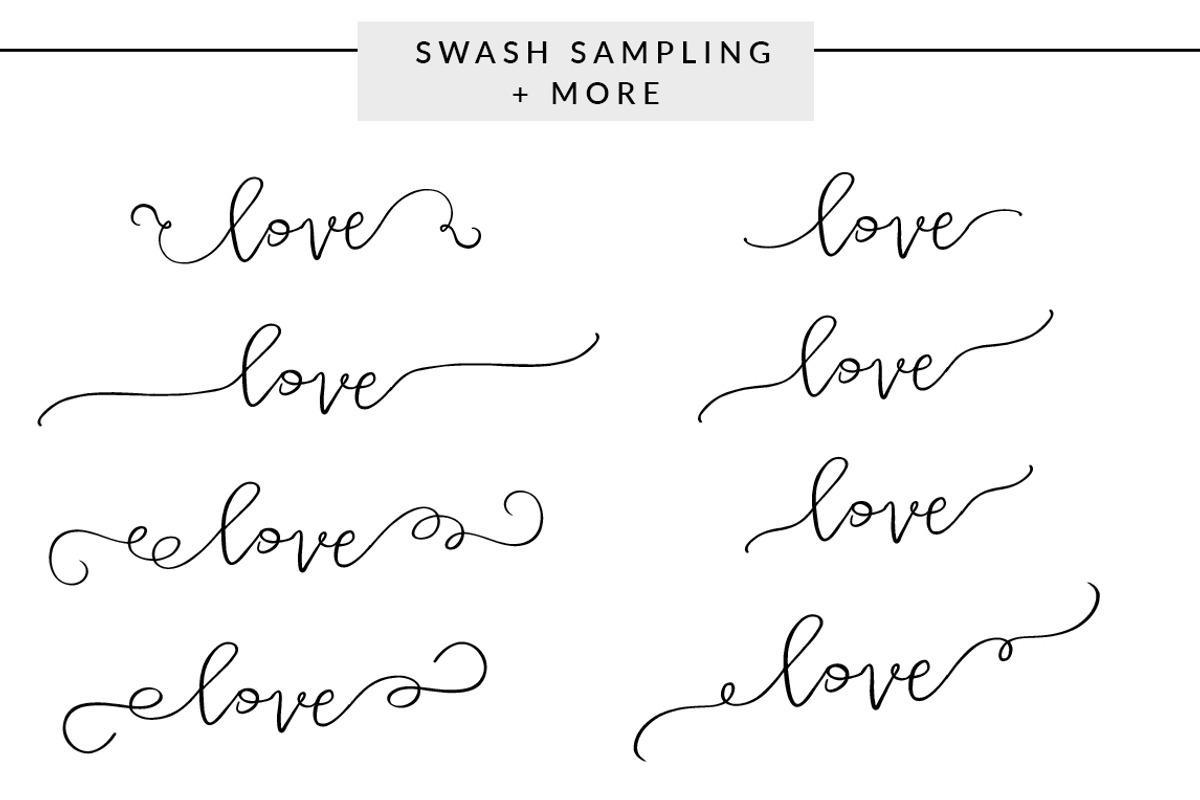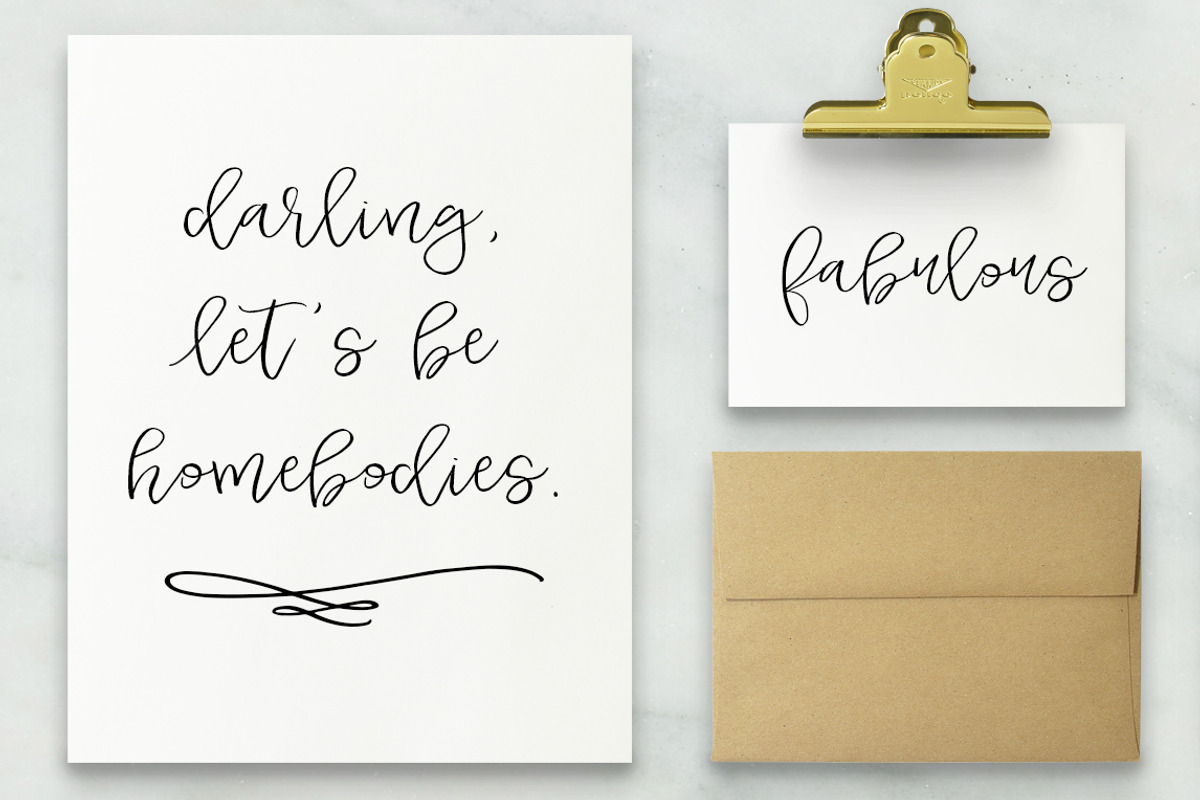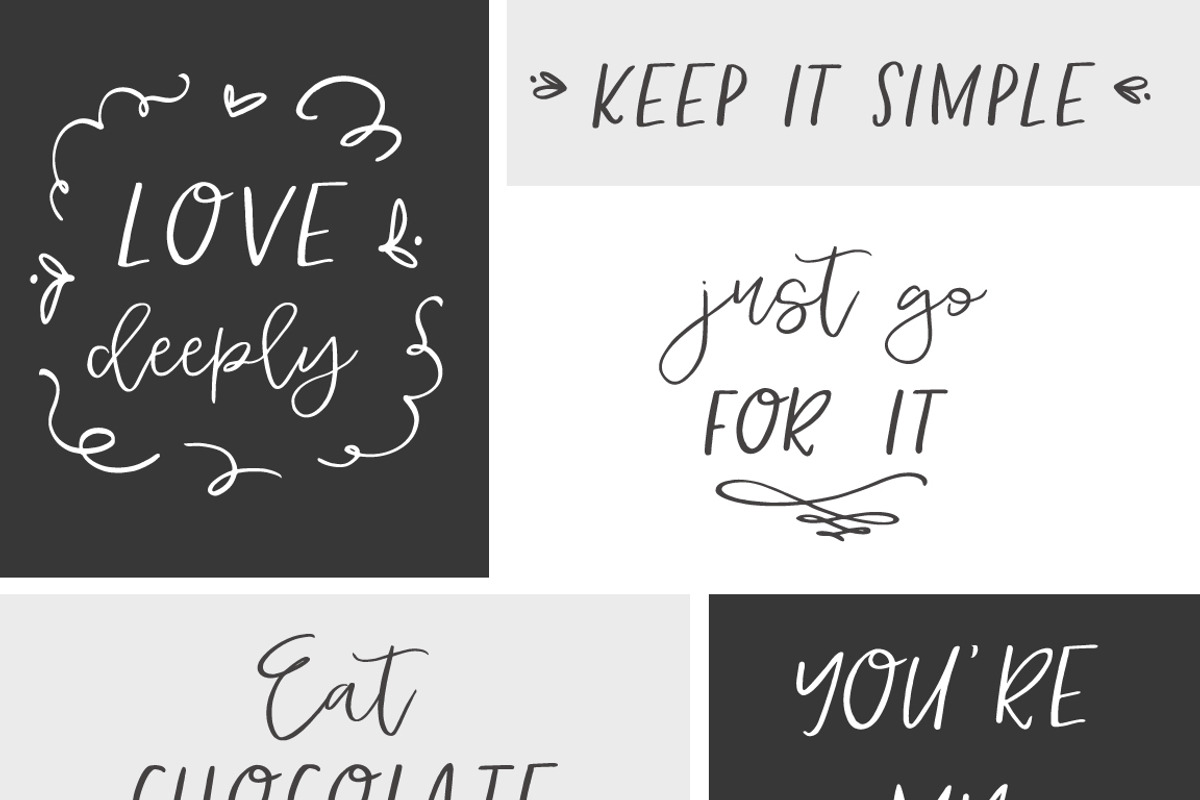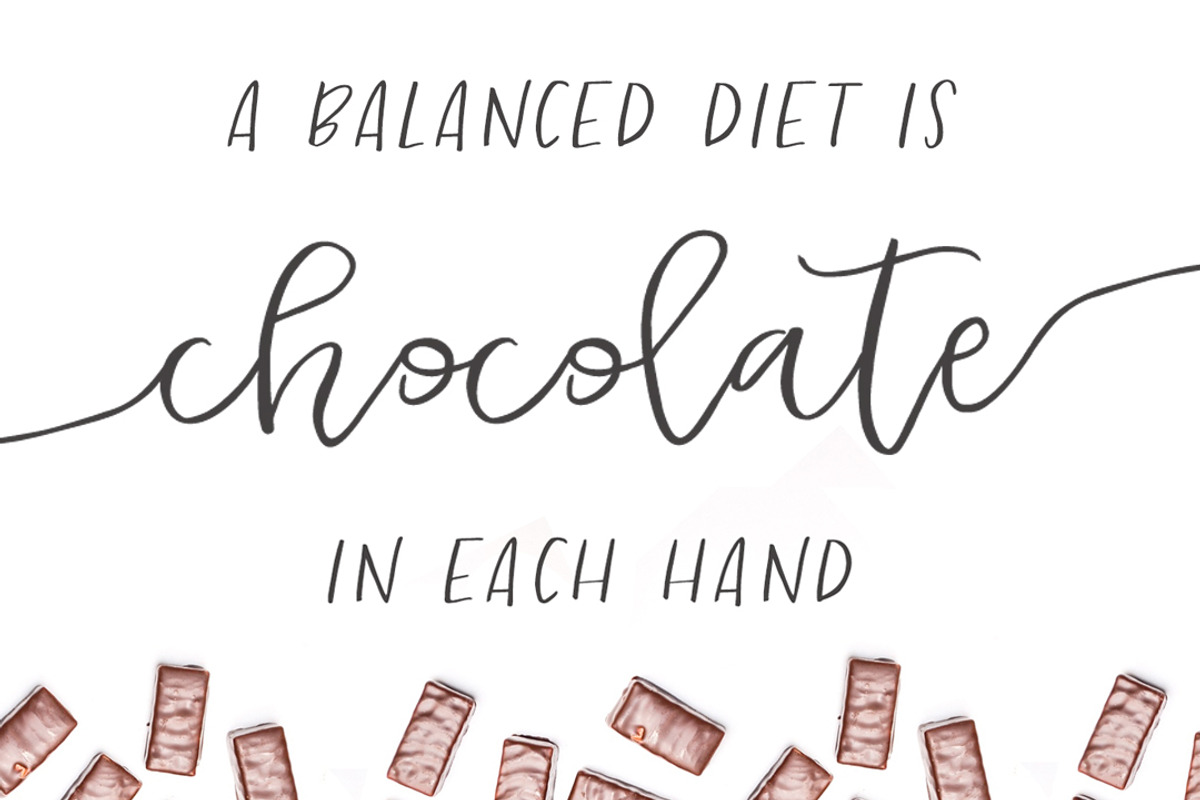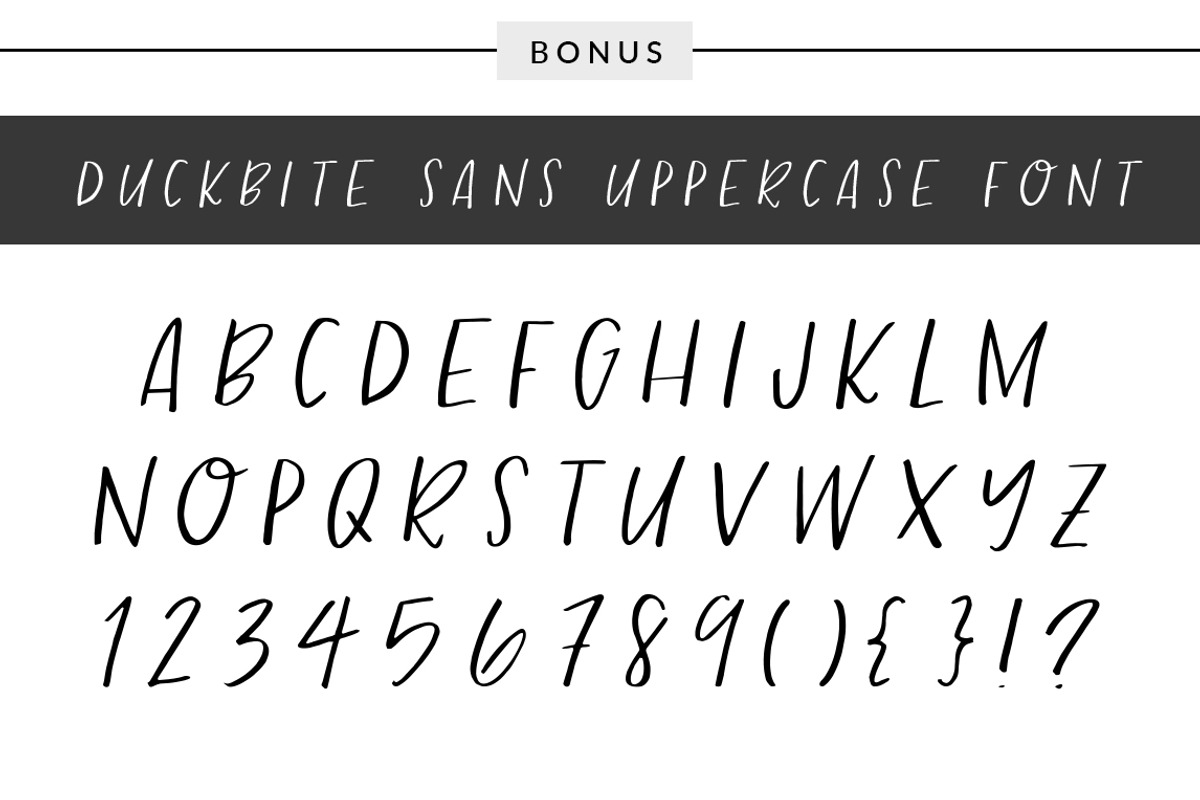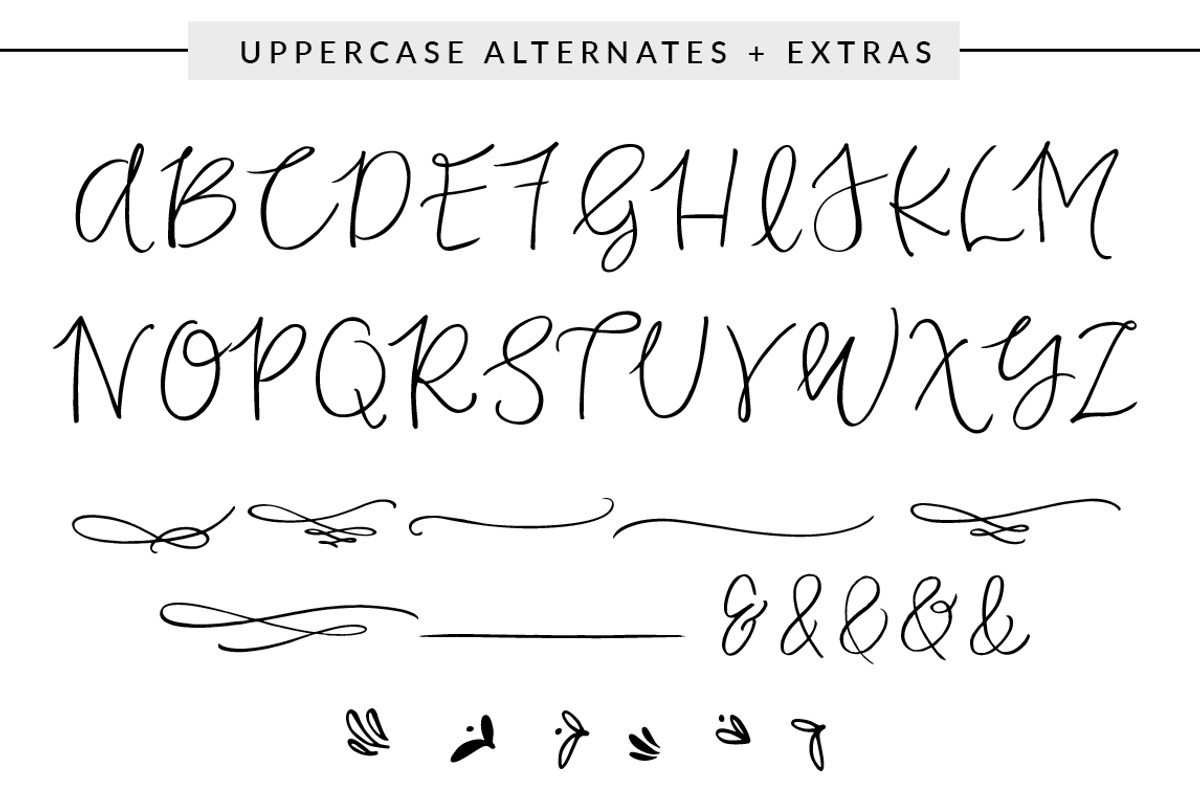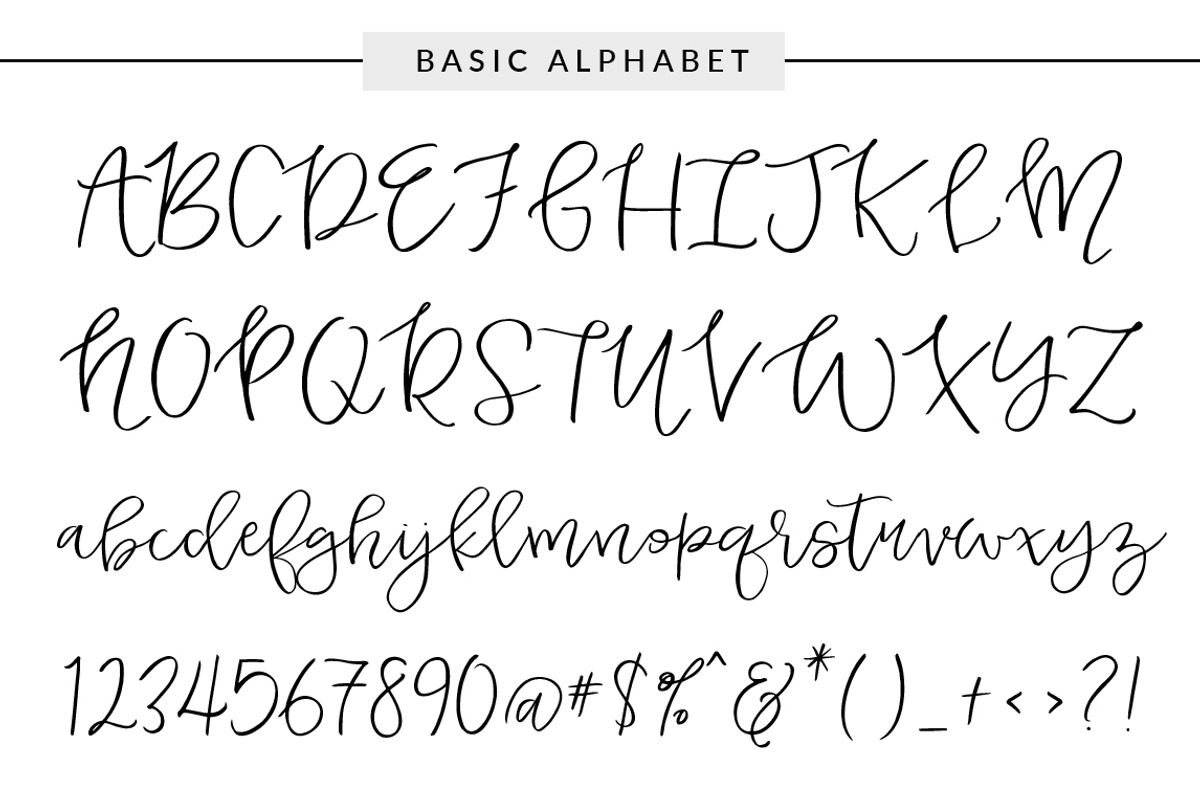
Duckbite Font Family
Duckbite Font Family by Angie Makes is a font selected for branding, posters, packaging, typography.
- Duckbite
- Duckbite Alternates - A Separate Set of Uppercase Letters that Pairs With Duckbite
- Duckbite Swashes - Swashes to Add to the Beginning and End of Lowercase Letters
- Duckbite Extras - Swashes + Doodles
- Duckbite Sans - A Sans Serif Font to Pair Perfectly With Duckbite
- Duckbite Sans Skinny - A Super Skinny Sans Serif Font to Pair With Duckbite
- Meet Duckbite-- a modern calligraphy font set with swashes, extras, and alternate characters in abundance.
- What You Get: Duckbite Alternates - A Separate Set of Uppercase Letters that Pairs With Duckbite Swashes - Swashes to Add
Why Duckbite Font Family is worth a look
Duckbite Font Family by Angie Makes fits naturally into Branding, posters, packaging, typography.